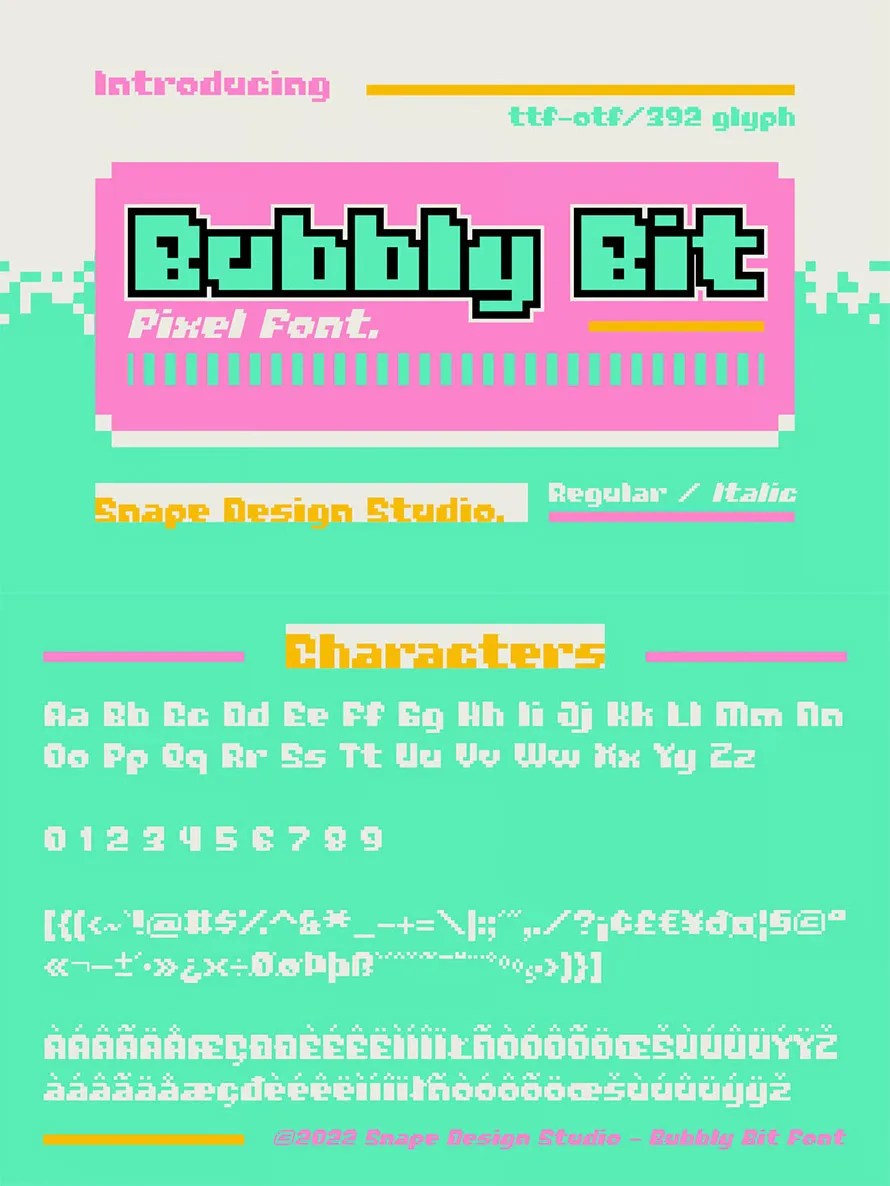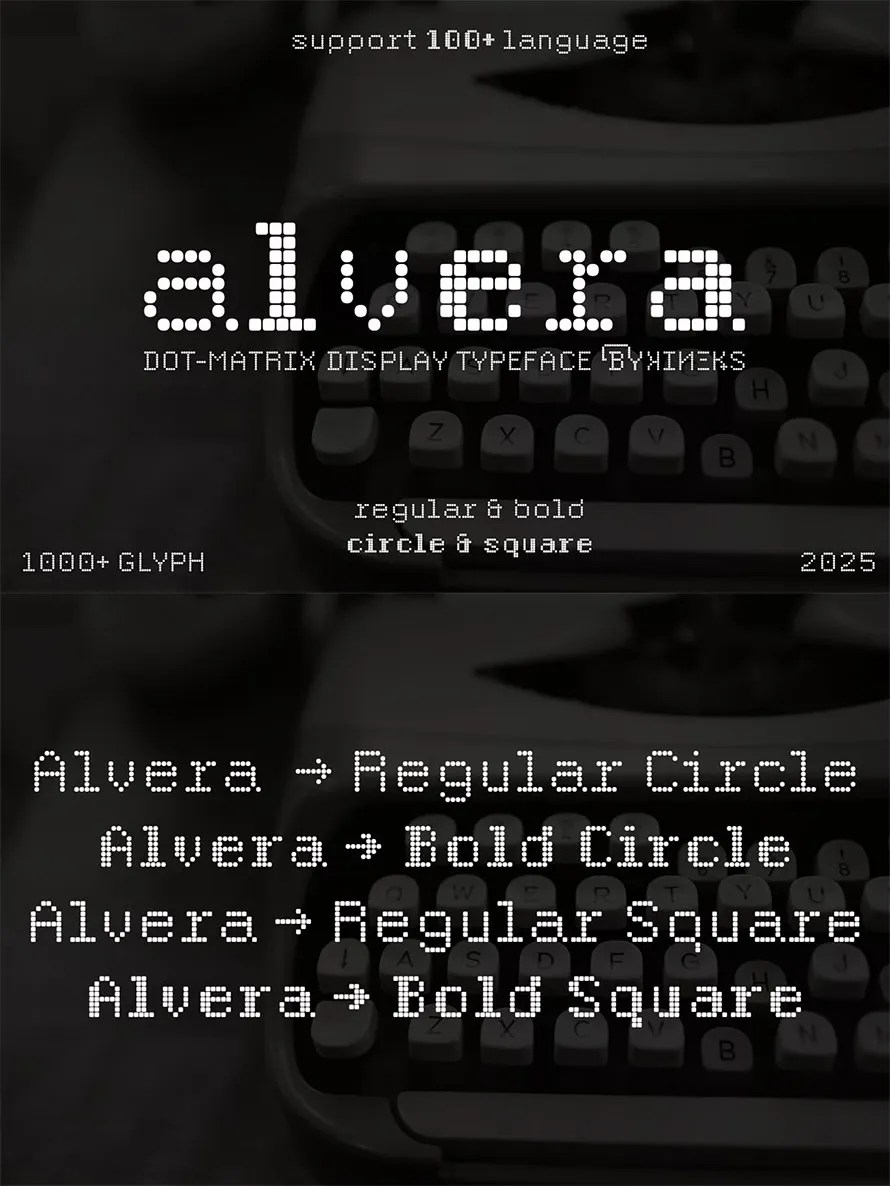
Introducing 50+ best Pixel fonts also knows as classic video game fonts. A retro-inspired pixel typefaces that brings the charm of 80’s arcade video games design. These fonts are perfectly captures the essence of nostalgic arcade games and old-school RPGs. The pixel style fonts with strong appearance, making it ideal for gaming-related projects, posters, branding, and digital content. Also these fonts are excellent choice for game developers, streamers, and creative designers looking for a retro gaming feel.
If you were born in the 80’s or 90’s, you’ll be familiar with Windows 3.1 and the arcade games from that time, which used pixel fonts for their graphics. Now a days Pixel fonts are used to create 80 or 90’s gaming effects which are really attractive and eye-catching. Whether developers working on a fantasy RPG, platformer, or vintage retro arcade project, these fonts will transport your audience back to the golden era of 8-bit and 16-bit games.
50+ Best Pixel Fonts for Game Developers
Retro style Pixel Fonts are perfect for game design themes, also suitable for movie, documenter, film, logo, poster, game, book cover, headlines, title and many more projects. By using these fonts you can make creative ideas and notice how it will make them stand out!
Here is the list of 50+ Best Pixel Fonts:
Alvera Dot Matrix Sans Typeface
Alvera is a bold dot-matrix inspired display typeface that blends the raw nostalgia of retro printers with the sleek precision of modern design. Its modular, grid-based letterforms capture the digital pulse of typography—perfect for projects that want to fuse vintage tech aesthetics with futuristic energy.
Raw Pixel Bitmap Pixel Font
Raw Pixel is a bold bitmap pixel font that brings the nostalgic charm of classic 8-bit and 16-bit gaming to your designs. Inspired by old-school arcade games, computer interfaces, and digital pixel art, this font captures the retro essence of pixel typography while maintaining crisp readability.
Arcade Pixel Font
Arcade Pixel is a retro pixel font style, perfect for retro game design theme, Also suitable for movie, documenter, film, logo, poster, game, book cover, headlines, title and many more projects. Add this font to your creative ideas and notice how it will make them stand out.
Pixel Kart Pixel Font
Pixel Kart is a retro pixel font style, perfect for retro game design theme, Also suitable for movie, documenter, film, logo, poster, game, book cover, headlines, title and many more projects.
Retro Pixel Font
Retro Pixel is a nostalgic pixel-style display font crafted with a retro video game aesthetic in mind. Designed in a clean pixel grid, it features both Regular and Italic styles, bringing a dynamic and classic 8-bit look to your creative projects.
Pixela Sans Serif Font
Pixela is a pixel-style Sanserif font, with a strong and dynamic modern touch, a great font for logos, labels, flayers, brochures, signage, handmade brands, anything related to modern style, etc.
Eightbit Retro Font
This pair was inspired by the retro eightbit video games poster design that i saw on some coffee shop, It was crafted by hand specially to add natural handmade feeling in its brand identity than i make it clean with pentool.
Dottix Pixel Font
Dottix Pixel Font emerges as a strikingly modern pixel font, radiating a distinctly futuristic and digital energy. Its sharp, clean letterform structure, built upon a precise grid, evokes a sense of technological advancement and sophisticated simplicity.
Easy Pixel Modern Pixel Font
Step into the pixel-perfect world with EASY PIXEL, a modern pixel font designed to harmonize bold nostalgia and futuristic edge. Inspired by retro arcade games and Y2K digital vibes, this typeface delivers a clean and sharp look that fits a wide range of creative projects.
Techbit Soft Pixel Logo Font
Techbit is a modern pixel font family designed to bring a clean, digital aesthetic to your projects. With its sharp, blocky letterforms and retro pixel-inspired style, Techbit blends nostalgia and simplicity, making it perfect for games, apps, branding, posters, and more.
Pixel Geometric Font
Pixel font is perfect for modern logo, screen display, and is most suitable for modern design, technology, sci-fi, futuristic style, flat design and web design.
Pixel Stick Pixel Font
Pixel Stick is a retro pixel font style, perfect for retro game design theme, Also suitable for movie, documenter, film, logo, poster, game, book cover, headlines, title and many more projects.
Techpixs Pixel Font
Techpixs is a retro pixel font style, perfect for retro game design theme, Also suitable for movie, documenter, film, logo, poster, game, book cover, headlines, title and many more projects.
Gimbot Pixel Font
For NFT, pixel-style, game, or poster design needs, Gimbot fonts are specially made to enhance your value. Adding your style and headline summary is ideal. Additionally, we have created old style, NFT, and unique vibes specifically for Micro font, so feel free to develop any project that will highlight your core idea.